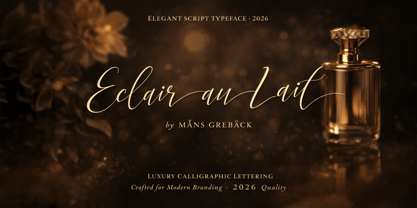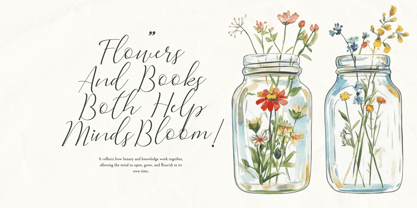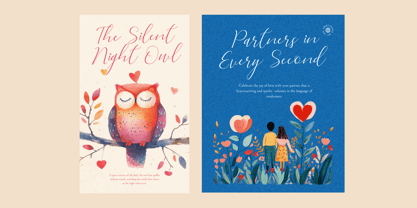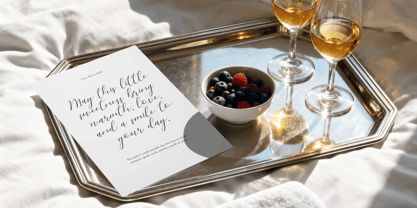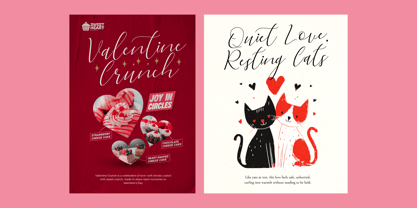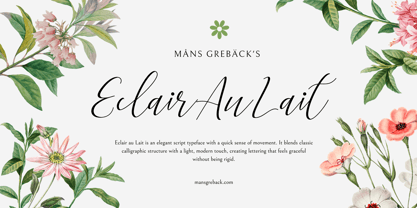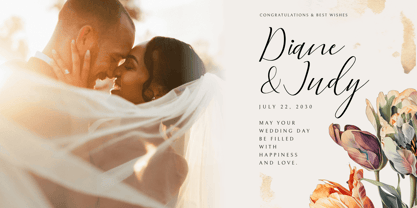
Eclair Au Lait
von Mans Greback
Die Schriftfamilie Eclair Au Lait wurde von Måns Grebäck entworfen und von Mans Greback veröffentlicht. Eclair Au Lait enthält 4 Stile und Familienpaketoptionen. Mehr über diese Familie
Eclair au Lait is an elegant script typeface with a quick sense of movement. It blends classic calligraphic structure with a light, modern touch, creating lettering that feels graceful without being rigid. The strokes are wild and flowing, with subtle contrast and carefully shaped curves. Letters connect naturally, and the rhythm stays calm and balanced even in longer words. The style is expressive yet controlled, giving the text a warm appearance. The font is built with advanced functionality and guaranteed top-notch quality, containing stylistic and contextual alternates, ligatures and more automatic and manual features; all to give you full control and customizability. It has extensive lingual support, covering all Latin-based languages, from North Europa to South Africa, from America to South-East Asia. It contains all characters and symbols you'll ever need, including all punctuation and numbers.
Designer: Måns Grebäck
Foundry: Mans Greback
Måns Grebäck is a type designer and font creator specializing in script typography, but with a portfolio containing a vast selection of styles. Typefaces from Måns Grebäck are used as company and product logotypes, as well as headlines and in advertisement by a wide range of industries world-wide. Founded by Måns Grebäck in 2010, Mans Greback AB originally went under the name of Mawns Fonts and later Aring Typeface AB. While the foundry has its seat Örebro, Sweden, Måns also lives in Portugal. The Premium Foundry page can be viewed Here.